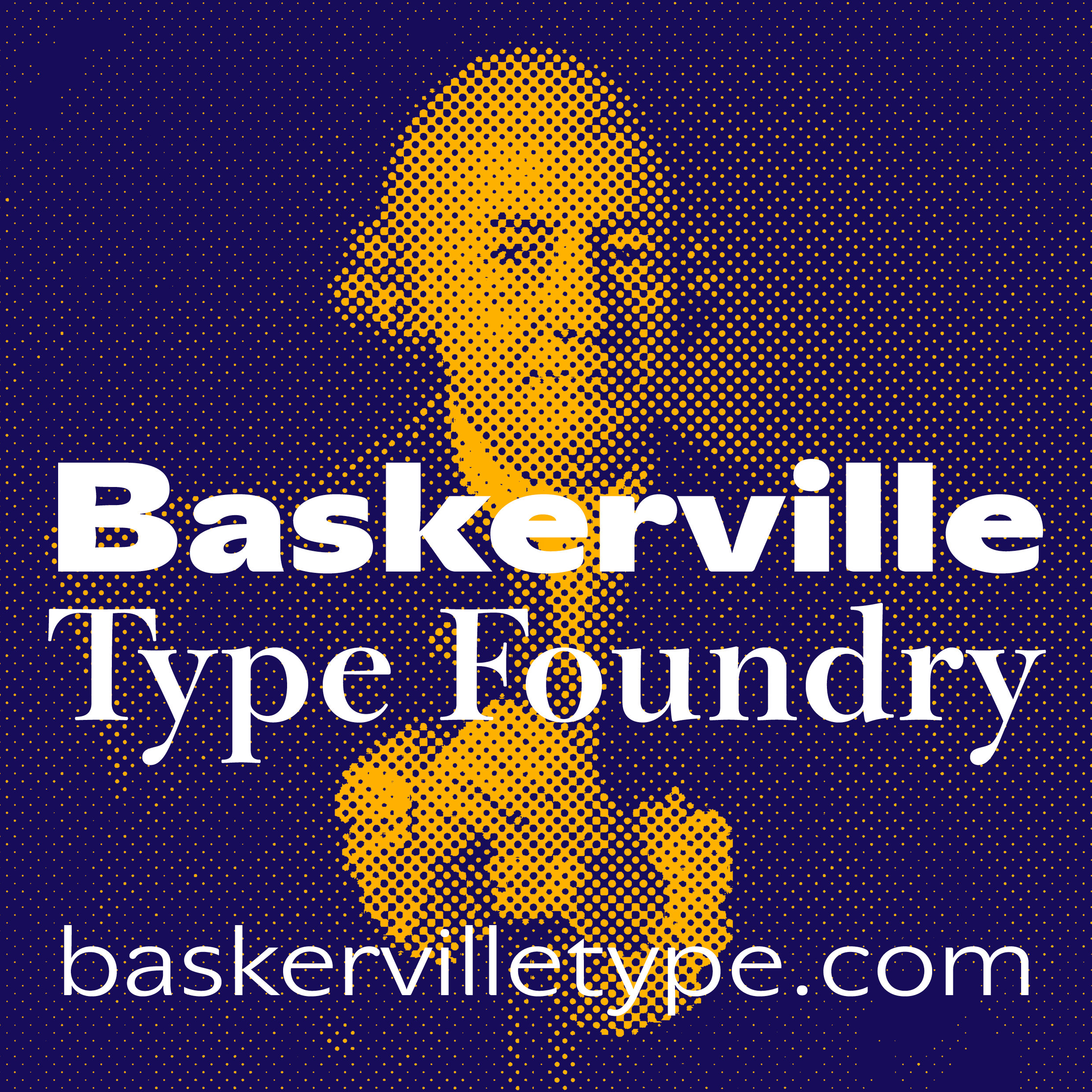
John Baskerville (1707 – 1775) was an English businessman, printer and type designer.
Baskerville is a type face with the character of a gentleman, a type face of sober elegance and clear design. Its nature is remote from dramatic contrasts, as we know them from the Continental typography of the Late Baroque period. A project of a type face family which includes twenty designs cannot rely on a single pair of tired eyes; that is why we are again grateful to Otakar Karlas for his valuable advice, especially when putting the finishing touches to the typeface. It was upon his recommendation that, among other things, the anatomy of the basic (original) design was reinforced, the rhythm of the italics in text sizes was made more tranquil, the balance of the "&" sign form and the colour of the small caps were improved. The result is an absolutely ordinary and inconspicuous type face – a worker in the service of literature.
The continuation of Baskerville’s revolutionary idea is here. If we perceive the typography of the 18th century as “transitional” in the aesthetic sense, the same applies to the first quarter of the 21st century in the technological sense. Interestingly, all Baroque type designs have survived to this day, especially those that have adapted to the new environment. Printing is no longer the only destination for fonts, today web applications dominate within the framework of visual identity, and especially user interfaces (ui/ux). There, the Variable format is already an established standard, to which our design and aesthetic experience is added.
Together with John Baskerville and his court engraver John Handy, we have prepared a perfect timeless font system:
Until recently the story of his type face ended with mediocre digital versions, which did not get at the root of its inspiration. Our pursuit of this paramount body type face of the 20th century began in Nové Hrady Castle, the place where a part of the depository of old prints of the National Museum Library is kept, in the summer of 1999. Thanks to the understanding of the librarian Petr Mašek we were allowed to study and photograph four rare volumes from Baskerville's printing office, dating from about 1760.
We selected as the most successful models for the digitalization of this type face its Roman and italics in the size of about today's 14 points, which Baskerville used for the printing, among other things, of his folio Bible in 1763 and Vergil's works in Latin in 1757. These were large-size, stately prints on paper smoothed out by hot copper calender rollers. When composing the pages, Baskerville emphasized the importance of the blank space, just as the effect of the majestic austerity of the setting, which became an inspiration for Neo-classical typographers. He strove to remove everything which obstructs legibility, working without ornaments and rules, neatly, and with large margins.
He proceeded along these lines also when designing his new type face. His engraver John Handy was given the task to make the type face different from the then fashionable Caslon, which was a surprise for a certain part of typophiles of the period. Baskerville's production in this way perhaps prepared the public also for some ideas of Bodoni and Didot, which is why nowadays everybody calls it a " transitory" phenomenon. A detailed evaluation of Baskerville's heritage, however, remains a task for historians. Our analytical transcription enhances rather the artistic and visual qualities of his type face.
When digitalizing the type face, we did not have at our disposal a complete alphabet – partly because Baskerville did not solve some of the signs (some of them did not even exist at the time), partly because we were loath to go to Cambridge where the greater part of the original punches is deposited. But there was no need to do this. For inherent in every fragment of any typeface is the principle, according to which it is possible, with a little bit of natural feeling, to complete the set of signs. An analytical transcription is also to remove any potential shortcomings of the source of inspiration and must not take over mechanically all details of the design. Even creators of genius, however, make mistakes sometimes and, therefore, in spite of the fact that we officially speak about "a transcription", what was involved in the case of all complementary designs was a fairly fundamental reworking. Our aim was not so much to be reverently faithful to the original, as to preserve the spirit of the type face and to breathe new life into it.
The softness of its design predetermines it for every type of fiction and poetry, while its rational construction makes it useful also for scientific publications. Having worked on Baskerville's type face for more than a year, when we see it now, it feels like meeting an old friend.